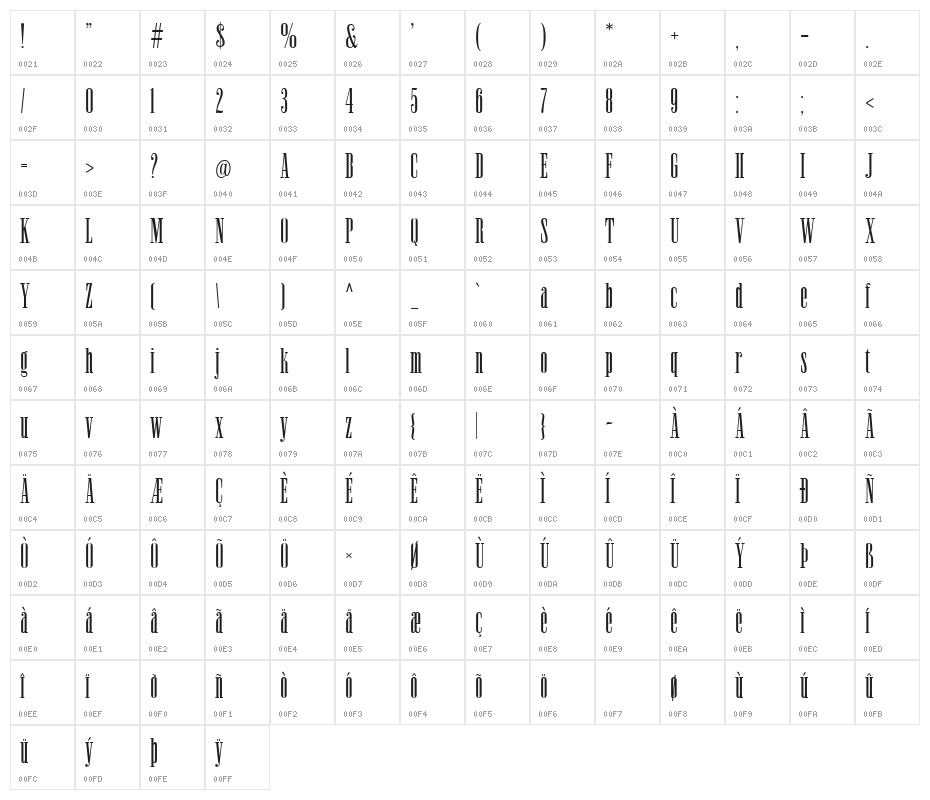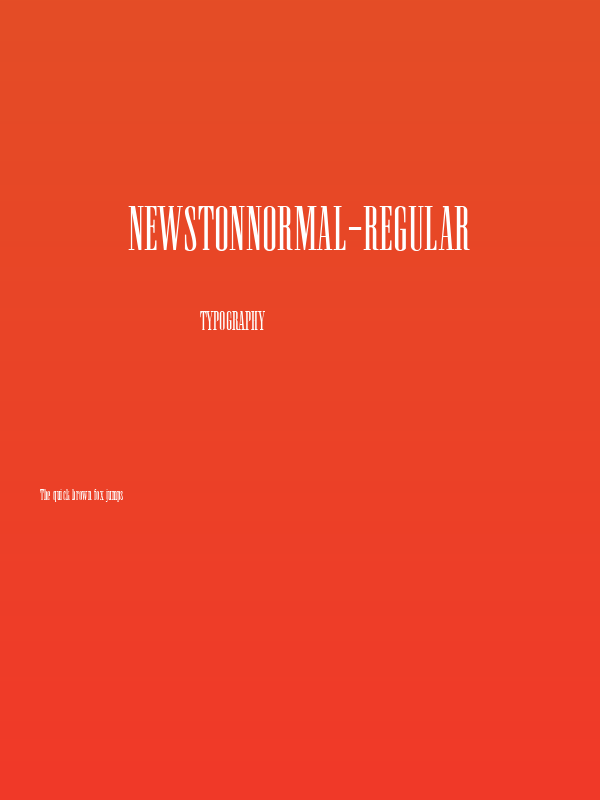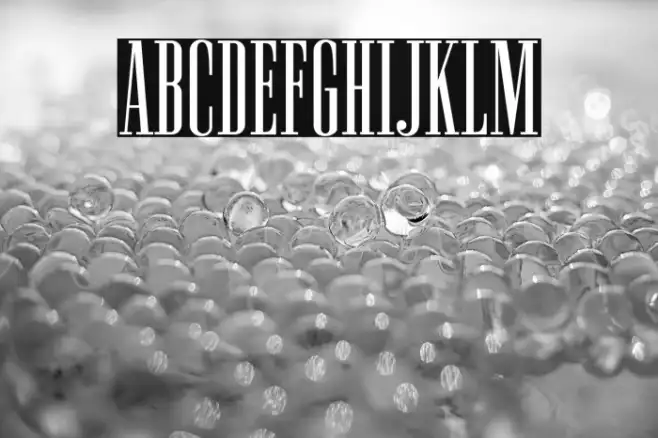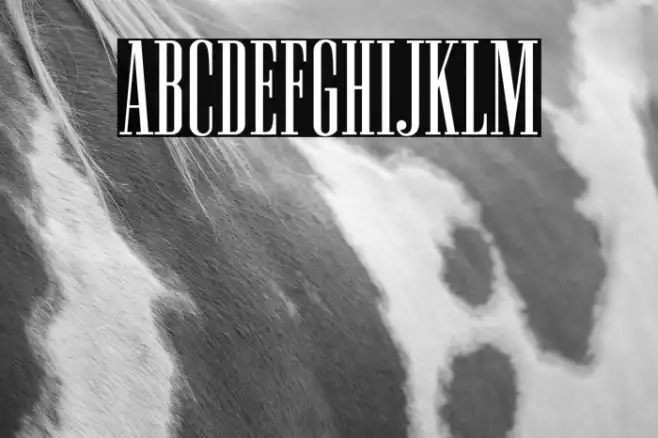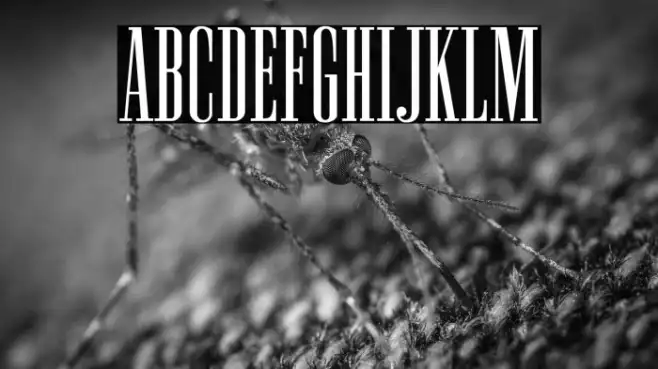
NewstonNormal-Regular Font
NewstonNormal-Regular Description
This font features tall, narrow characters with a strong vertical emphasis, creating a striking and elegant appearance. The serifs are pronounced and slightly curved, adding a touch of sophistication. The uppercase letters are particularly elongated, giving a sense of grandeur and formality. The lowercase letters maintain a consistent style, with a slight contrast in stroke thickness that adds to the overall readability. The numerals are clear and distinct, matching the style of the letters. Special characters are well-defined, maintaining the font's cohesive look.
| Proposed Projects | Ideal for use in formal invitations, editorial headlines, luxury branding, and elegant posters. |